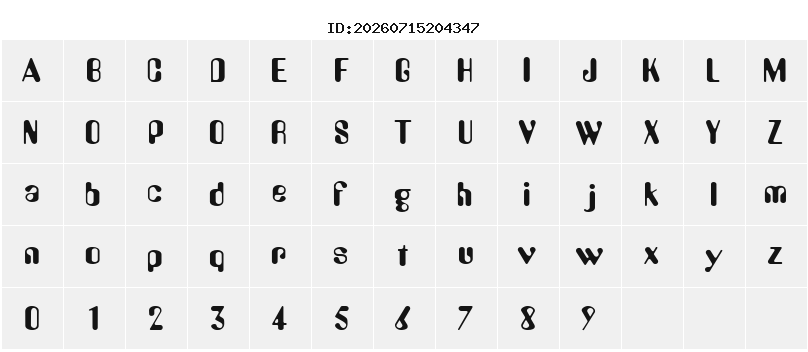
Aurely Becker Preview
• Font Name: Aurely Becker
• Full Font Name: Aurely Becker
About Aurely Becker.ttf
Aurely Becker.ttf is a modern, elegant sans-serif font designed for ultimate readability and visual harmony. Perfect for branding, headlines, web design, and print materials.